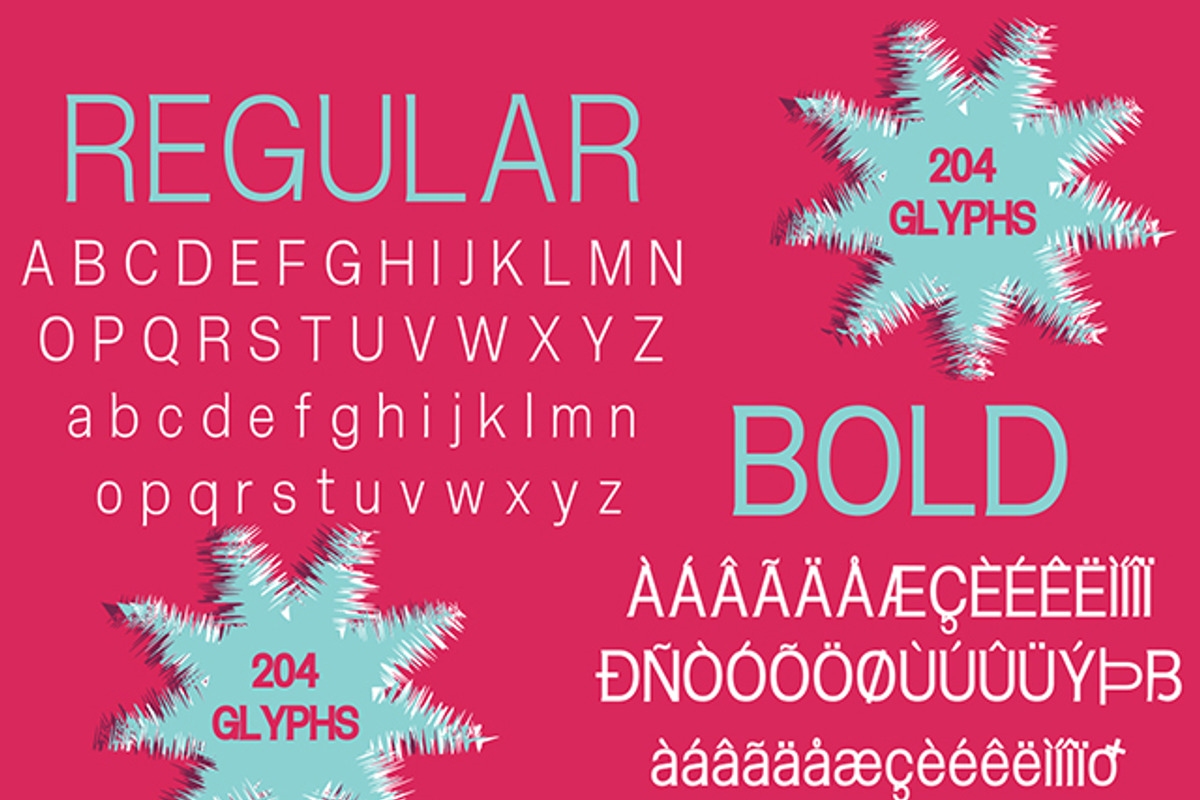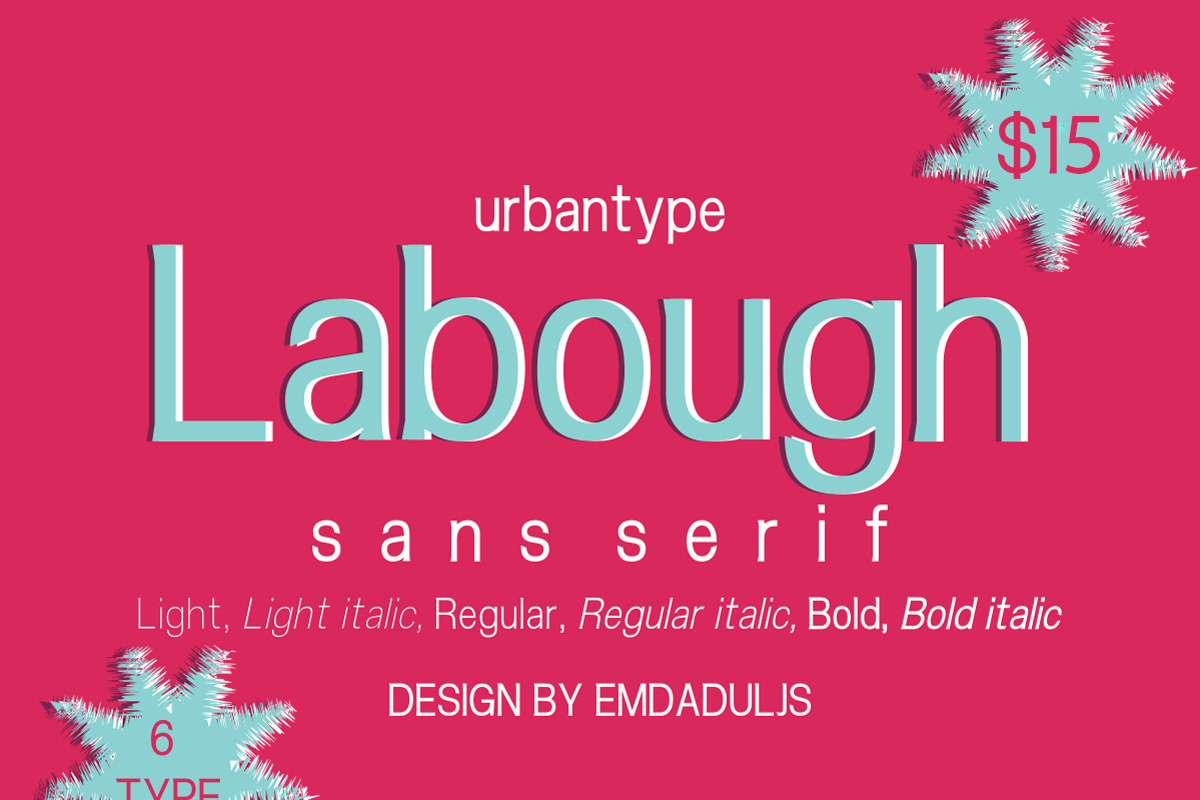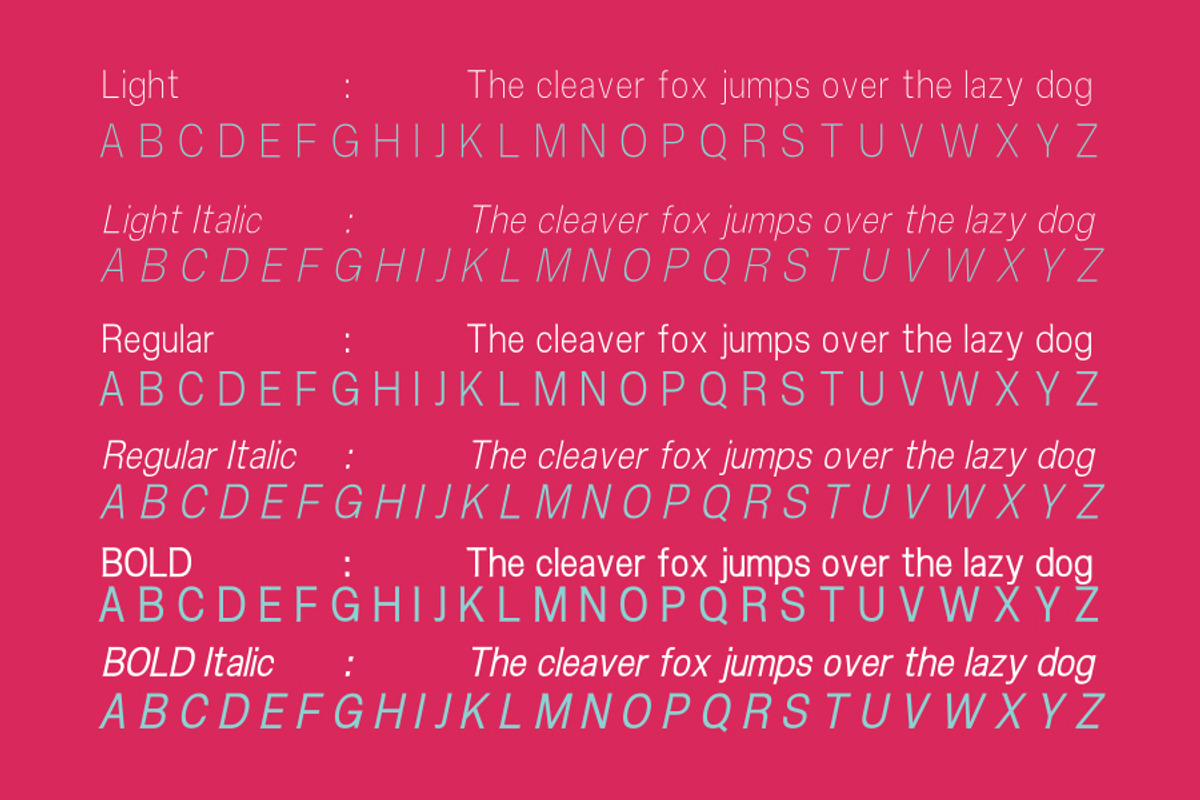
Labough Family Fonts
Labough Family Fonts by Emdaduljs is a font selected for branding, posters, packaging, typography.
- Labough Regular
- Labough light Regular
- Labough Italic
- Labough light Italic
- Labough Bold
- Labough Bold Italic
Why Labough Family Fonts is worth a look
Labough Family Fonts by Emdaduljs fits naturally into Branding, posters, packaging, typography.